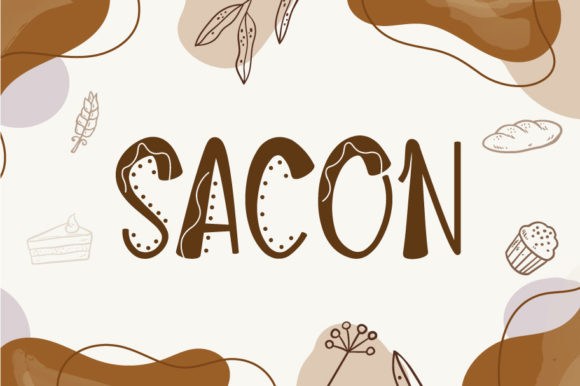
In a world of mundane fonts, Sacon emerges as a radiant beacon of creativity, beckoning you to unleash your imagination and paint your words with a splash of vibrancy. This captivating display font is the brainchild of muhammadfaisal40, a visionary artist who poured his heart and soul into crafting each glyph, ensuring that they dance and twirl with a life of their own.
With Sacon by your side, transform your creative endeavors into mesmerizing works of art. Whether you're a writer weaving tales that transport readers to new realms, a designer conjuring visual masterpieces, or a marketer crafting messages that resonate with audiences, Sacon will elevate your creations to unprecedented heights.
Immerse yourself in the font's playful personality, a delightful blend of whimsy and sophistication. Its unique letterforms, adorned with charming details and unexpected flourishes, will infuse your projects with an irresistible charm that captivates and enchants.
Sacon's versatility knows no bounds, effortlessly adapting to a myriad of creative pursuits. From logos that command attention to posters that ignite imaginations, from social media posts that spark conversations to presentations that leave a lasting impression, Sacon seamlessly molds itself to your vision, amplifying your message with undeniable impact.